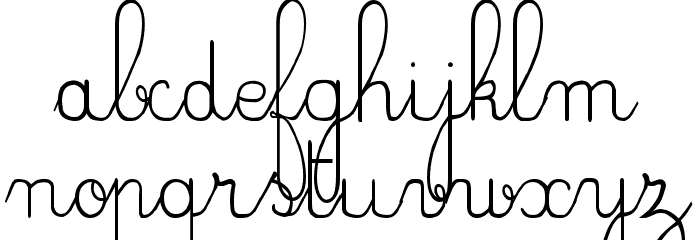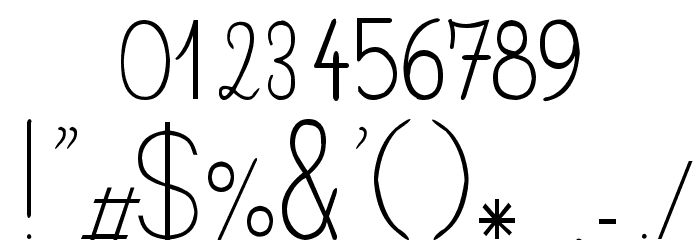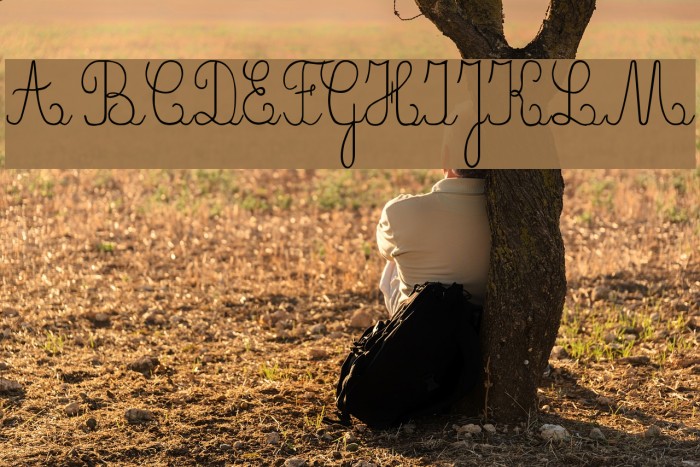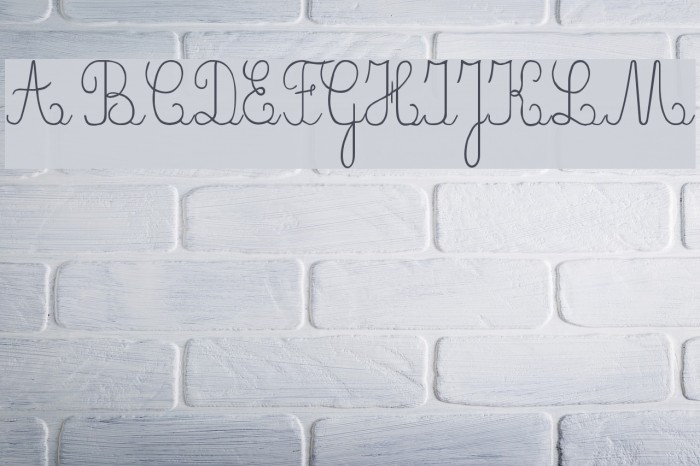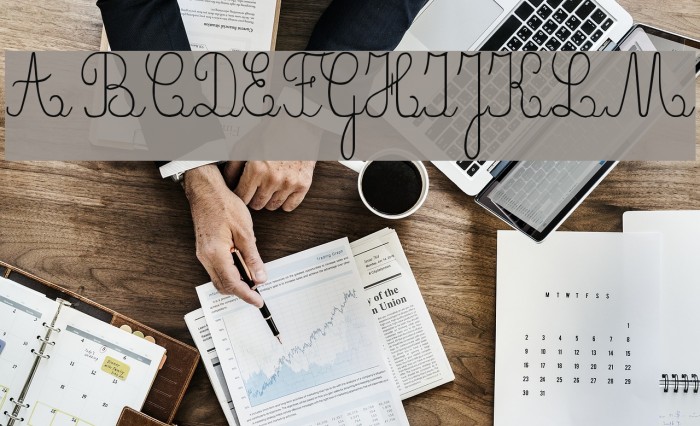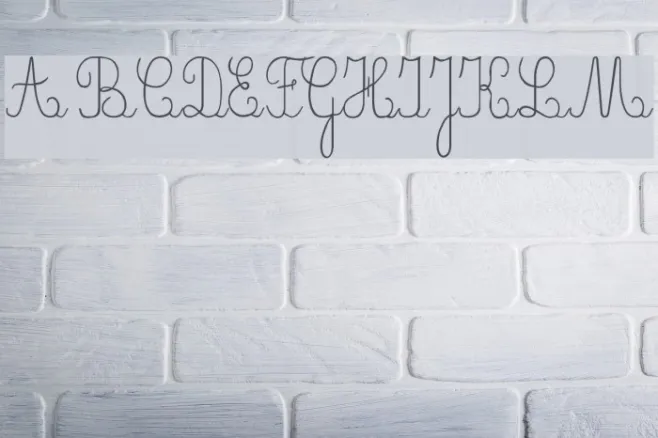
CrayonE Font
This font features a playful and whimsical script style, characterized by its flowing, interconnected letters that mimic the fluidity of handwriting. The uppercase letters are elegantly looped and slightly exaggerated, giving them a distinctive flair. The lowercase letters maintain a consistent height, with gentle curves and smooth transitions between strokes. The numerals are clear and easy to read, maintaining the same playful style as the letters. Special characters are creatively integrated, adding to the font's overall charm. This font is perfect for projects that require a touch of elegance and creativity.
A playful, whimsical script font with interconnected, flowing letters.
- Proposed Projects: Ideal for invitations, greeting cards, branding, and creative design projects.
- Use Case: Logos, Invitations, Creative design